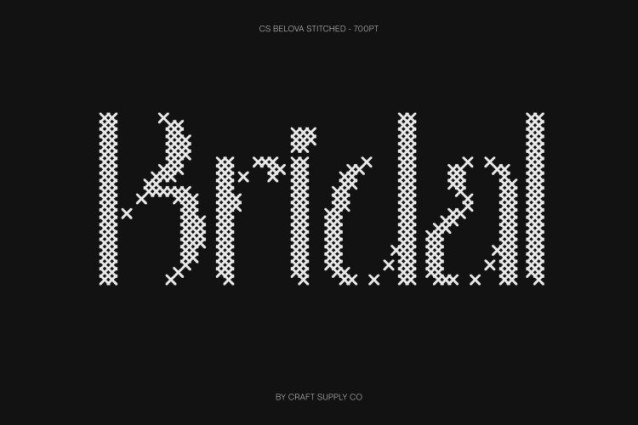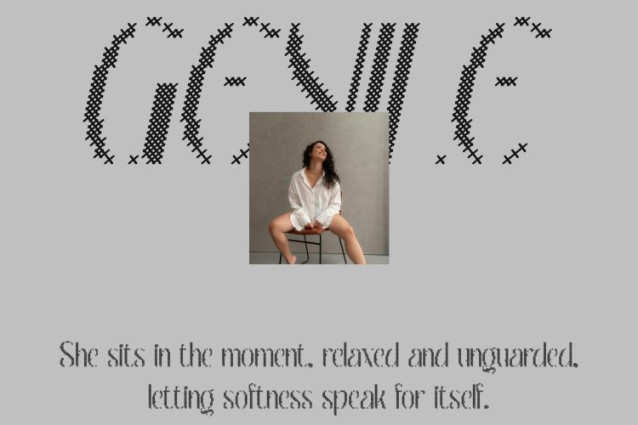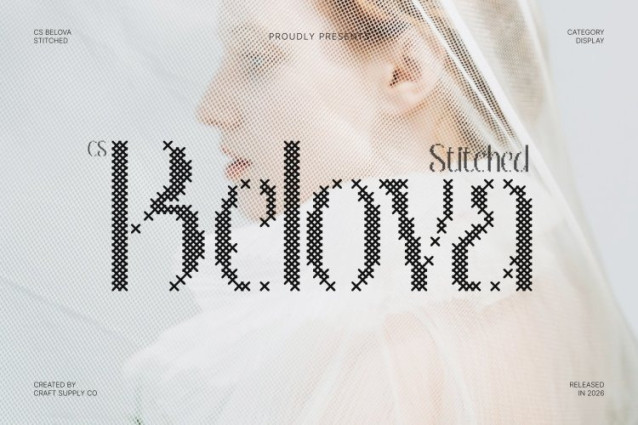
CS Belova Stitched Font
CS Belova Stitched Font – This is an elegant serif font crafted with clean, slender lines that emphasize clarity and sophistication. Its balanced structure creates a refined and graceful typographic foundation. Enhanced with a stitched style inspired by thread sewn or embroidered on fabric, this version introduces a handcrafted texture that adds warmth and distinctive charm while preserving the font’s polished elegance.
Modern Aesthetic with Embossed Stitch Detail
What sets apart is its subtle blend of modern style and playful character. The graceful proportions and gentle curves are complemented by a distinctive cross-shaped stitch pattern that overlays each letterform. This embroidered effect creates an embossed, fabric-like texture that enhances depth and visual interest, giving the font a classic, nostalgic, relaxed, and warm impression while maintaining its modern beauty.
Refined Simplicity with Expressive Charm
This font embraces simplicity as a strength. Its slender strokes and clean construction create an airy, elegant presence that remains highly readable. The stitched detailing adds a unique handcrafted nuance, transforming the minimal structure into a visually engaging and expressive typographic style.
Perfect for Fashion and Editorial Design
This is ideal for fashion branding, editorial layouts, posters, packaging, and stylish social media visuals. Its combination of refined serif elegance, playful modern curves, and stitched craftsmanship creates a sophisticated yet approachable aesthetic—perfect for fashion campaigns, magazine headlines, and creative project.